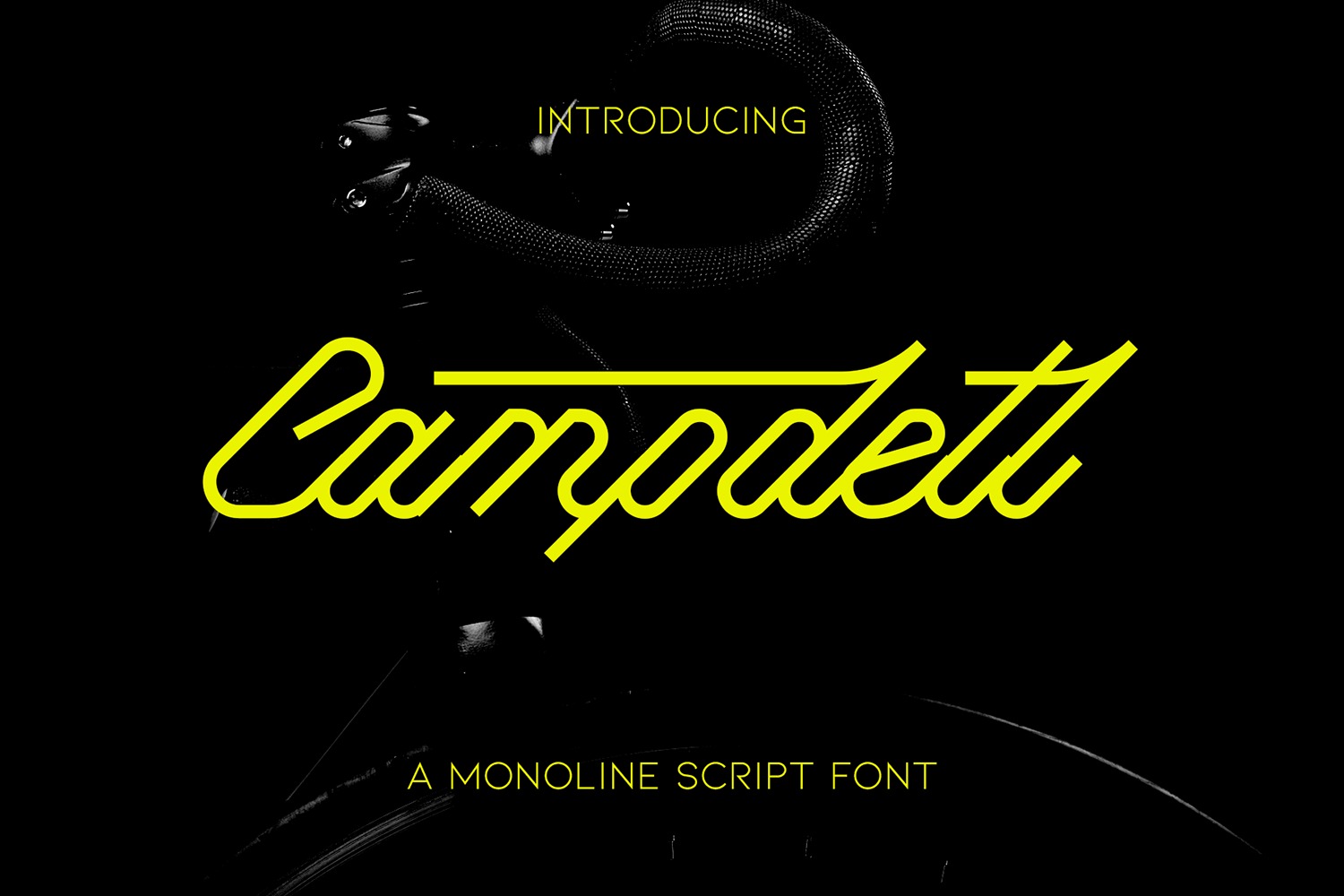
Campdell – Monoline Script Font
Campdell – Monoline Script Font is a clean and thoughtfully built typeface that works seamlessly for both professional branding and everyday creative uses. Campdell is a modern monoline script font featuring clean continuous strokes, elegant curves, and stylish handwritten details. Designed with a smooth connected flow, it is perfect for logos, branding, packaging, invitations, social media, posters, signage, and creative editorial projects. Complete with uppercase, lowercase, numerals, punctuation, stylistic alternates, ligatures, and multilingual support, Campdell delivers a contemporary handwritten appearance while maintaining excellent readability across a wide range of creative applications.